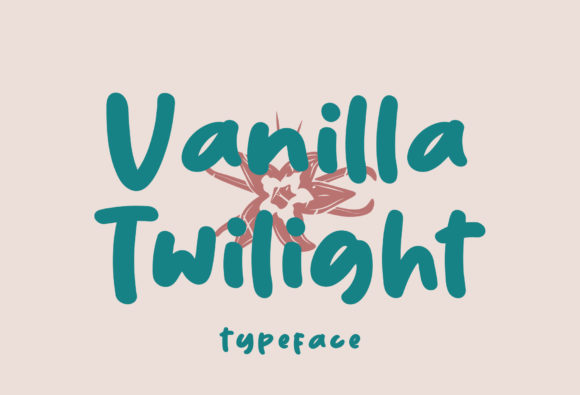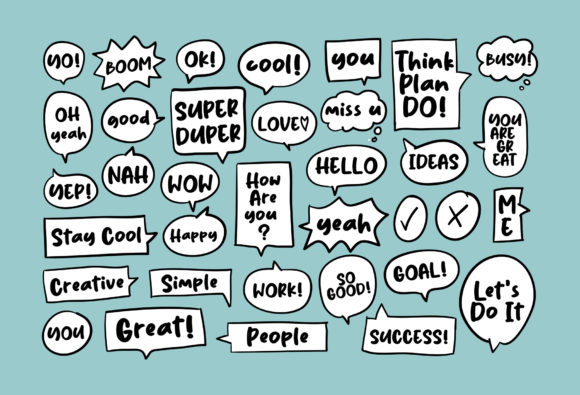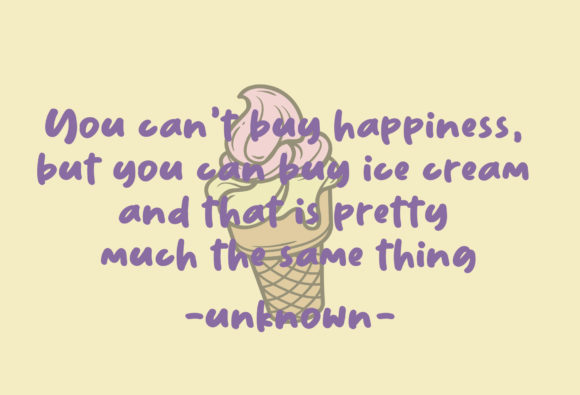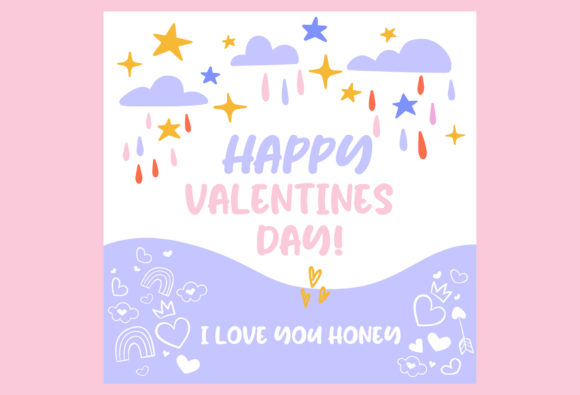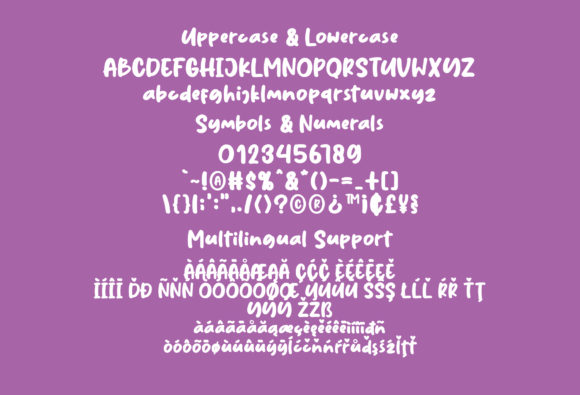
Vanilla Twilight Font
About Vanilla Twilight Font
Vanilla Twilight is a delightful handwritten font that exudes a cute and friendly vibe. With its charming and slightly quirky appearance, this font is incredibly versatile and can be used in a wide variety of contexts.
The Vanilla Twilight font features unique letterforms with playful curves and subtle irregularities, giving it a distinct and whimsical personality. It adds a touch of friendliness and approachability to any design, making it perfect for projects where you want to create a warm and inviting atmosphere.
One of the strengths of Vanilla Twilight is its adaptability. Whether you’re designing greeting cards, invitations, social media posts, logos, or any other creative project, this font can enhance your design with its unique charm. It works well on both light and dark backgrounds, making it suitable for a range of color schemes and themes.
The quirky nature of Vanilla Twilight makes it particularly appealing for projects that require a touch of fun and creativity. Its handwritten style adds a personal and authentic feel, making it perfect for adding a personalized touch to your designs. It can bring a sense of playfulness to children’s books, crafts, posters, and any other project that aims to engage and entertain.
Furthermore, Vanilla Twilight is highly legible, ensuring that your messages are easily readable. The clarity of the letterforms makes it suitable for both headline and body text, providing consistency and readability throughout your design. This makes it a versatile choice for various applications, including print and digital media.
In summary, Vanilla Twilight is a cute and friendly handwritten font that adds a touch of charm to any design. Its versatility and legibility make it suitable for a wide range of projects and contexts. Embrace the quirky nature of Vanilla Twilight and watch as it brings a playful and inviting atmosphere to your designs.